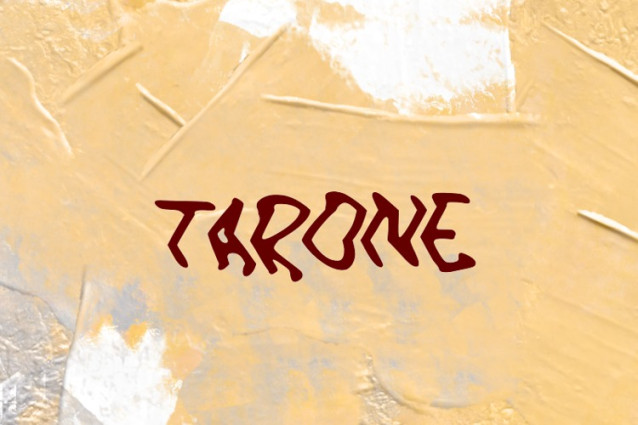
Tarone Font
Tarone Font is a chunky, comic, and cartoon display font. With its neat and joyful personality, this font will enhance any project you wish to create!